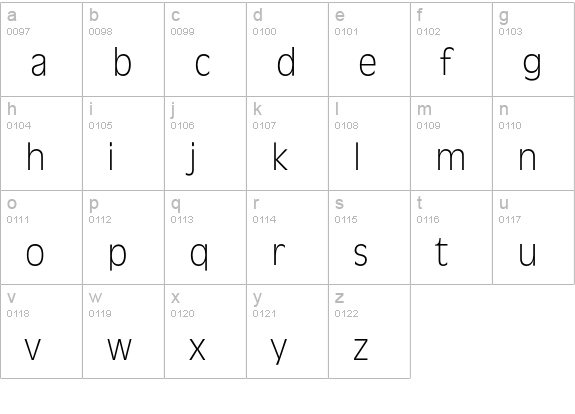
Ravenna-Xlight Font Details
Ravenna-Xlight is a stunning font that exudes elegance and sophistication. Its delicate and graceful letterforms are a testament to its refined design, making it the perfect choice for projects that require a touch of class. With its slender strokes and subtle curves, Ravenna-Xlight captures attention effortlessly and adds a touch of sophistication to any design. One of the best things about Ravenna-Xlight is that it is completely free. Yes, you read that right. This incredible font is freely available to download at FontsMarket.com. Whether you're a professional designer looking to add a unique touch to your projects or someone who simply appreciates beautiful typography, Ravenna-Xlight is a font that won't disappoint. The attention to detail in Ravenna-Xlight is truly remarkable. Each letter has been meticulously crafted to ensure a harmonious balance between elegance and legibility. The result is a font that is not only visually stunning but also highly readable, making it suitable for a wide range of applications. Ravenna-Xlight is versatile and can be used in various design contexts. From wedding invitations and branding projects to editorial layouts and web designs, this font adapts seamlessly to any creative vision. Its timeless beauty and classic appeal make it a go-to choice for designers who want to make a lasting impression. So why wait? Take advantage of this amazing opportunity to download Ravenna-Xlight for free at FontsMarket.com. Enhance your designs with this exquisite font and let its delicate charm elevate your work to new heights. Don't miss out on this incredible offer. Download Ravenna-Xlight today and unlock a world of possibilities for your design projects.